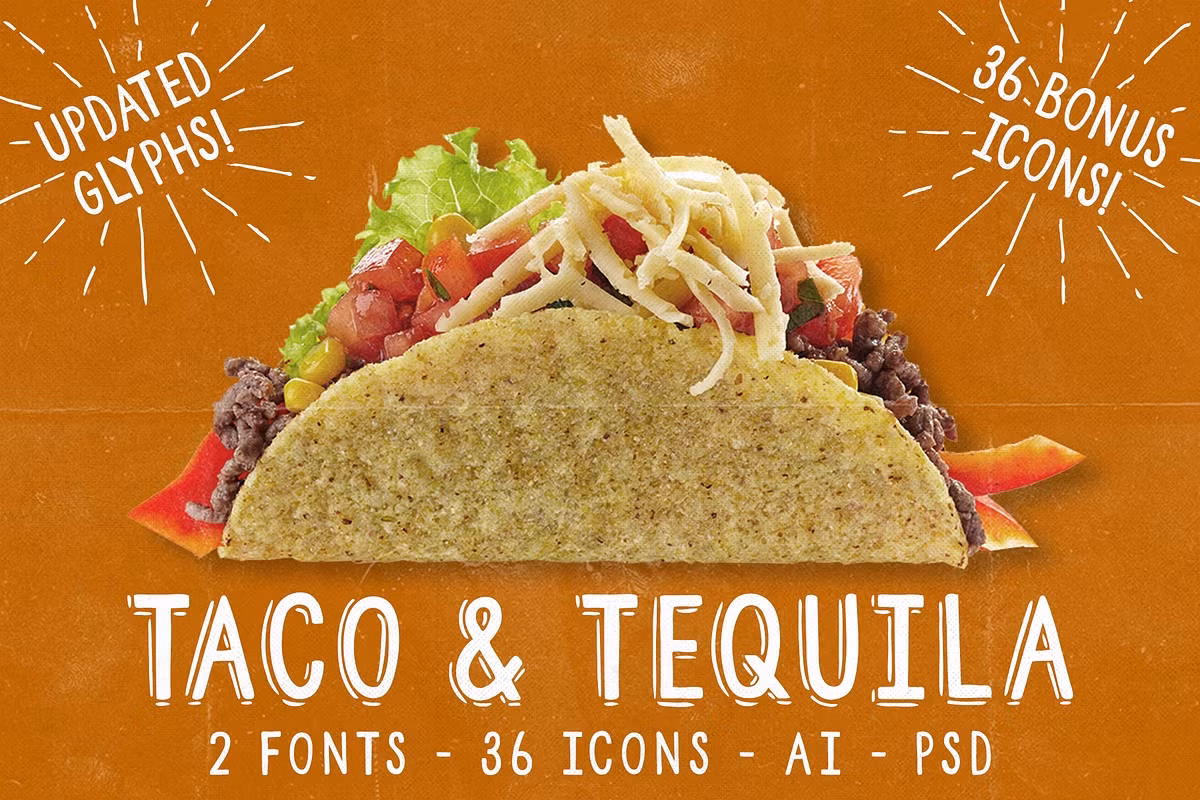
Taco and Tequila, 2 Fonts + Extras! Free Download is a lively and playful font duo that brings fiesta vibes to any design. With a bold display font and a quirky handwritten script, this combo is perfect for food branding, party invitations, menus, product packaging, and anything that needs a splash of flavor and fun. The included extras—like doodles and decorative elements—make it even easier to create vibrant, eye-catching compositions.
Designed to pair effortlessly, the two fonts in Taco and Tequila, 2 Fonts + Extras! Free Download offer contrast and character while maintaining a cohesive style. Whether you're aiming for a festive, rustic, or handcrafted aesthetic, this font duo delivers personality in every letter.